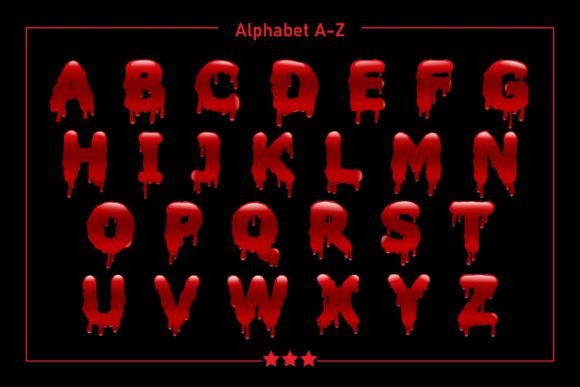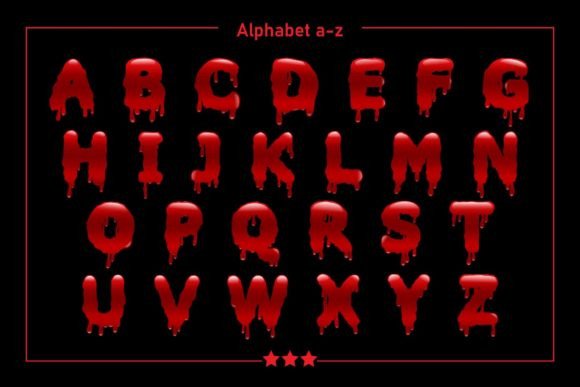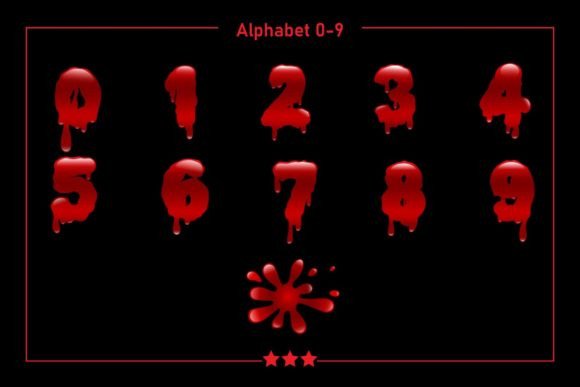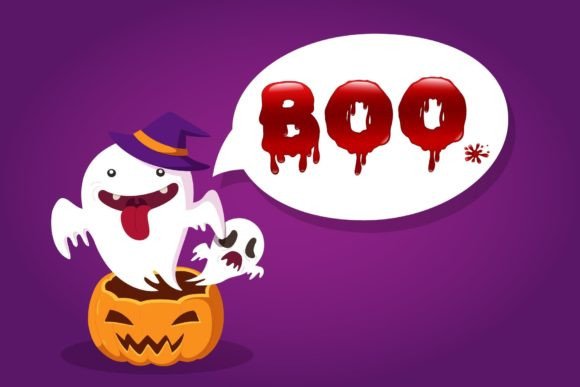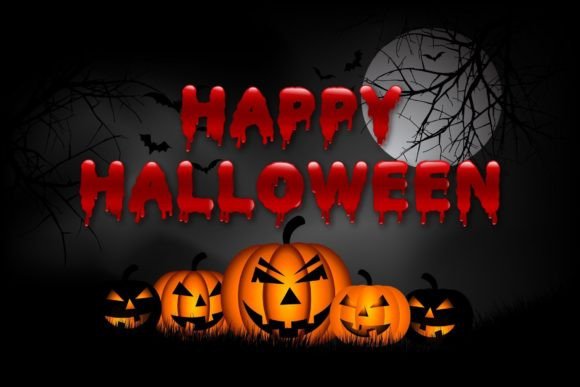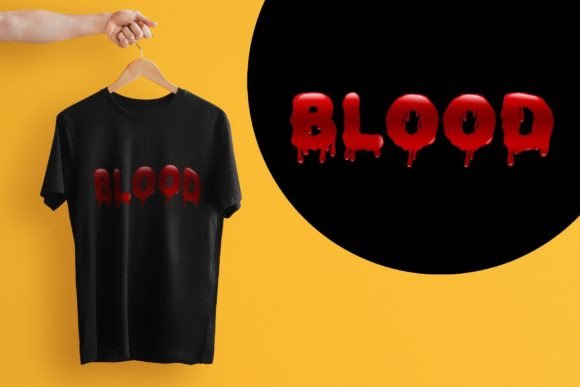
Spooky Font
About Spooky Font
Introducing Spooky, a captivating color font inspired by the essence of Halloween. With its unique and chilling design, Spooky is sure to add a haunting touch to your creative projects.
This font is perfect for capturing the spirit of Halloween and can be used in a variety of ways to create eye-catching designs. Whether you’re working on party invitations, posters, social media graphics, or any other Halloween-themed project, Spooky will make your designs stand out from the crowd.
With its intricate details and vibrant colors, Spooky brings a sense of mystery, excitement, and fun to your artwork. The font captures the essence of Halloween with its spooky and playful elements, making it suitable for both children and adults.
Unleash your creativity with Spooky and discover the endless possibilities it offers. Experiment with different layouts, color combinations, and sizes to create designs that evoke the Halloween spirit in a unique and memorable way.
So, add Spooky to your font collection and let it bring a touch of Halloween magic to your creative ideas. Watch as your designs come to life with the playful and haunting charm of Spooky. Embrace the spirit of Halloween and make your projects stand out with this beautiful and captivating color font.